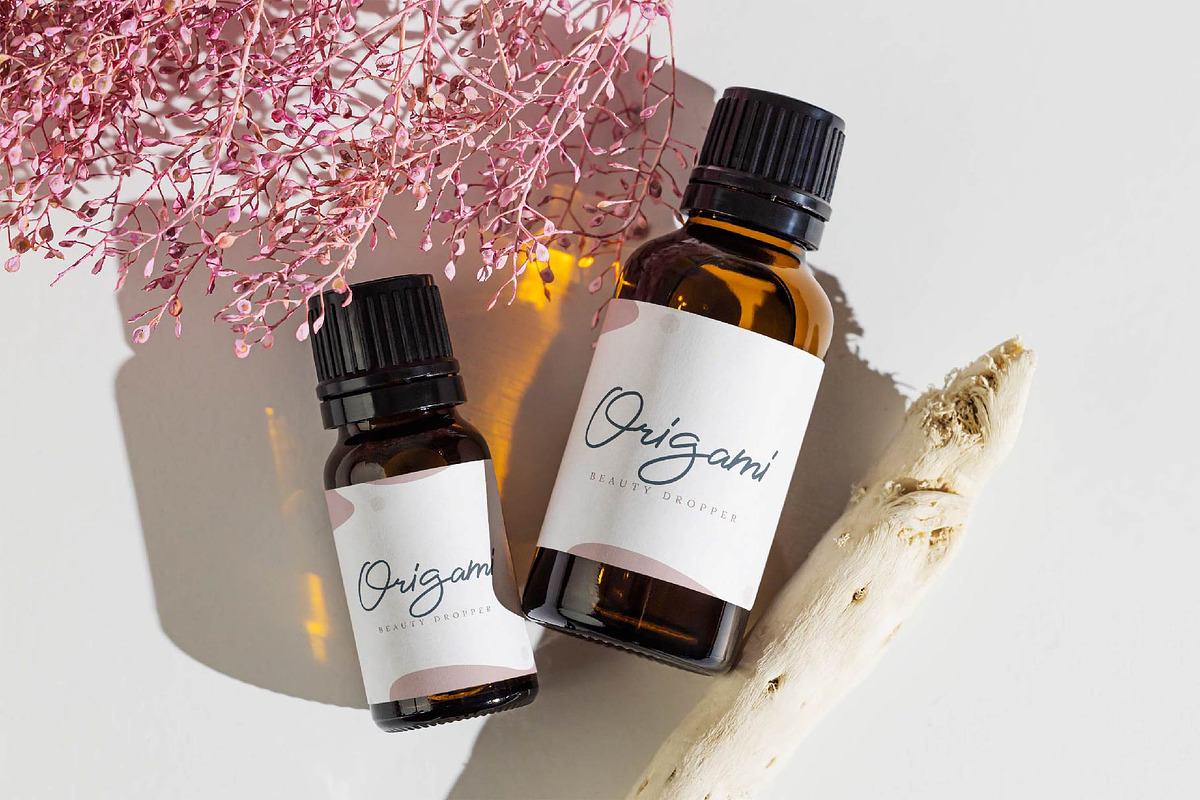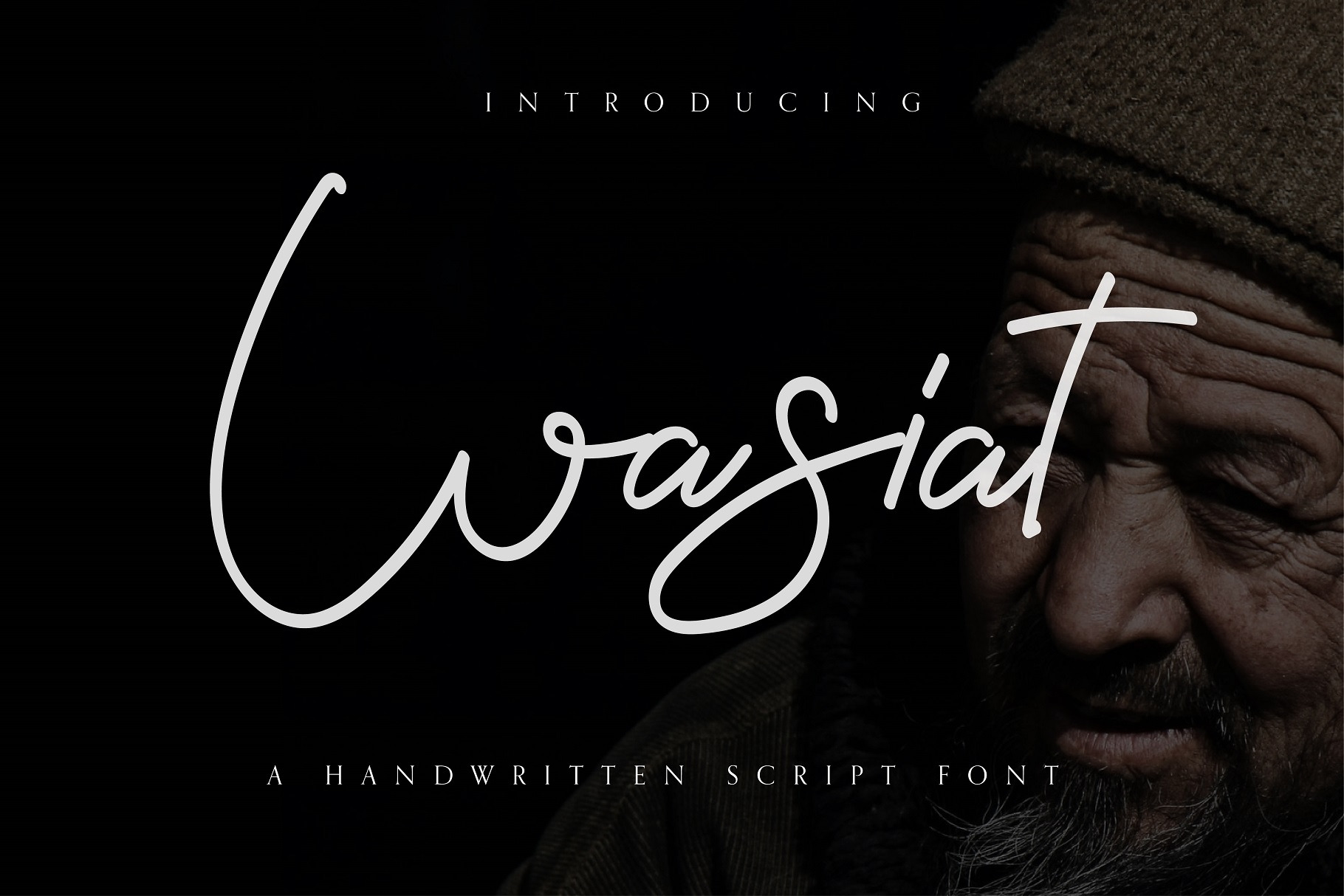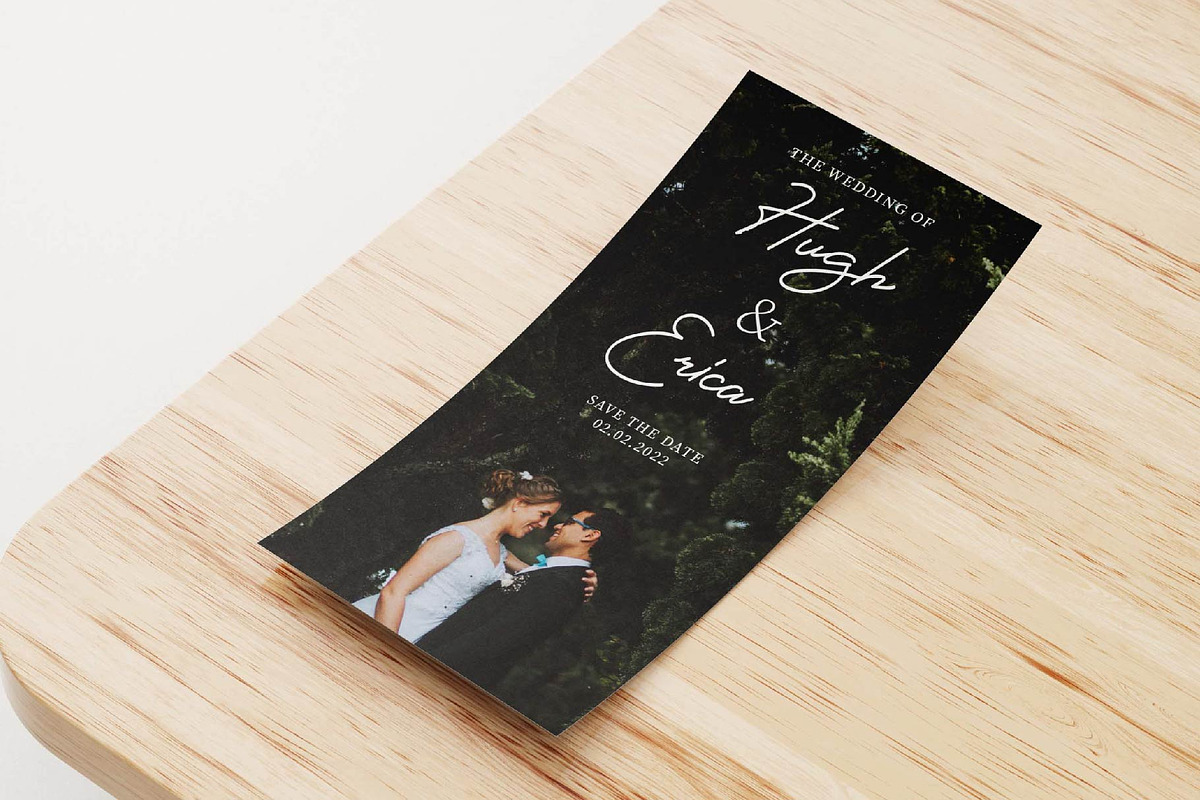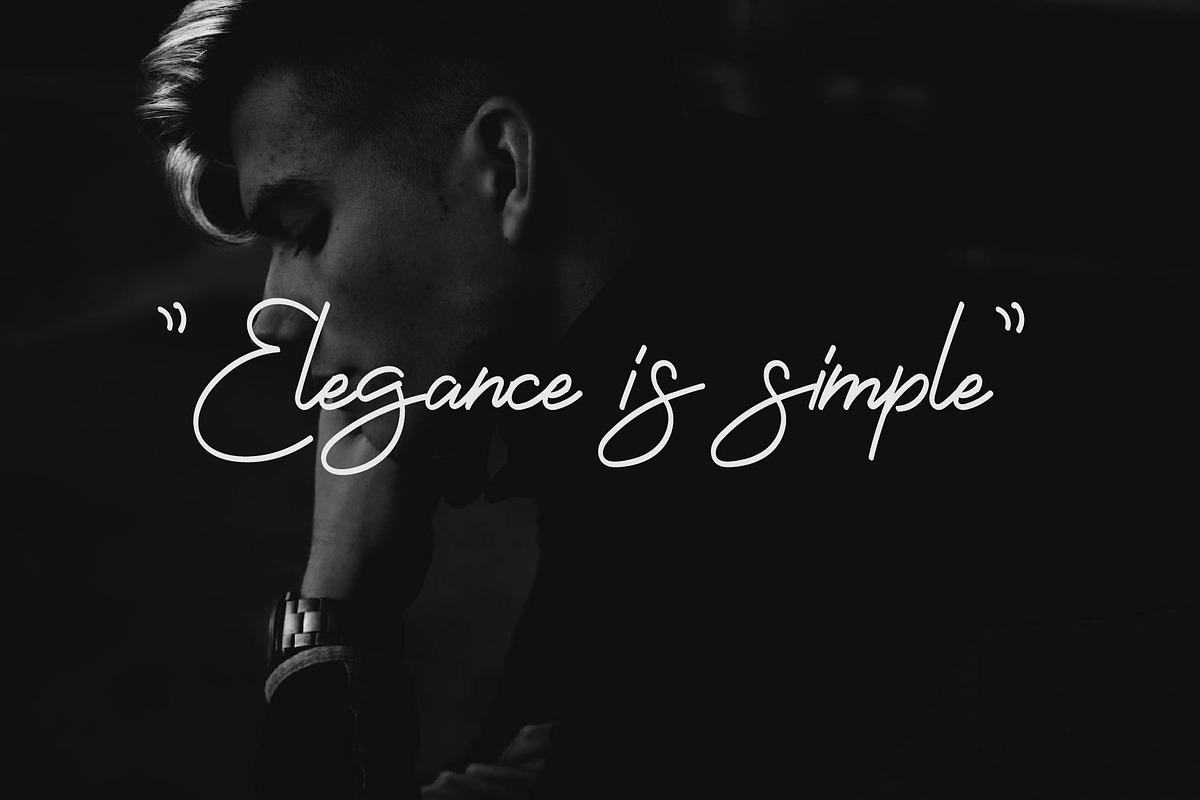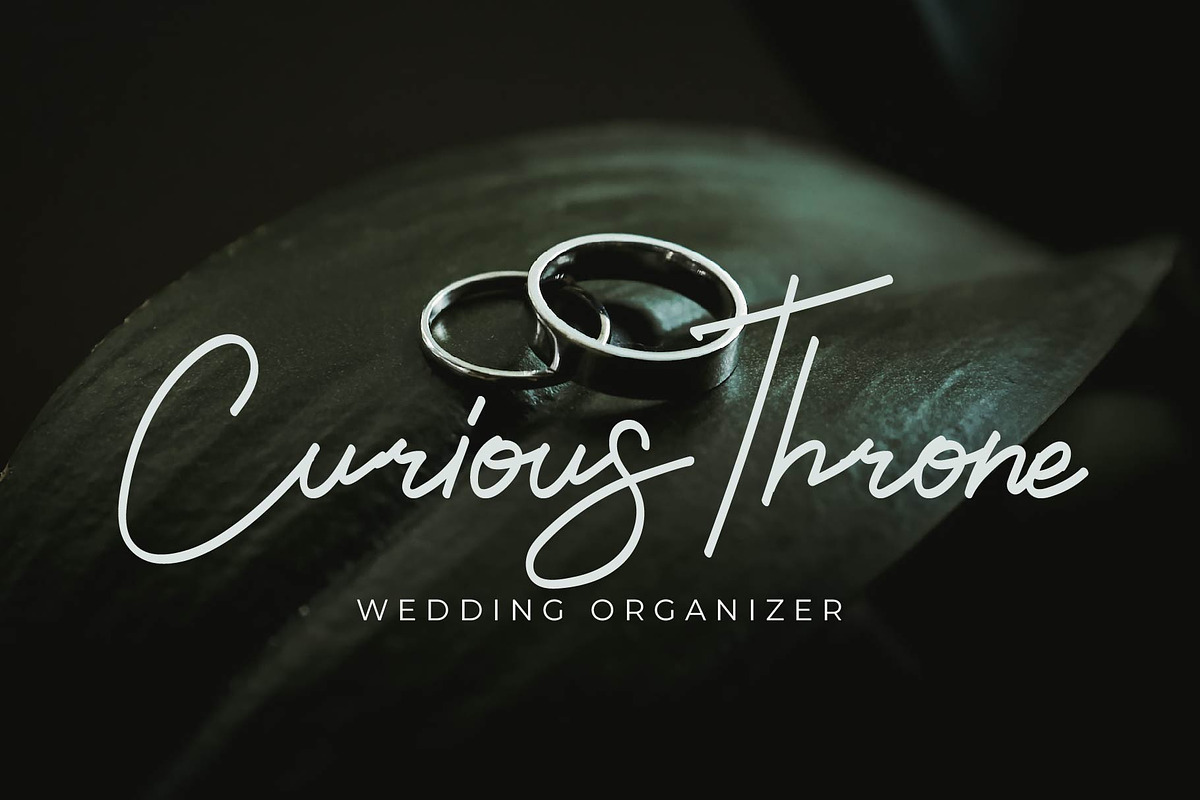
WASIAT Handwritten Script Font
Presenting WASIAT, a truly elegant handwritten font. Designed to capture the charm and grace of handwriting, WASIAT embodies a tasteful flair that is sure to enhance your creative projects.
It is a perfect fit for a myriad of branding endeavors such as logotypes, social media posts, and advertisements. WASIAT also effortlessly elevates product packaging, product designs, and labels with its authentic handwritten touch. Moreover, it adds a dash of sophistication to wedding invitations, stationery, and any projects where an elegant handwriting style is desired